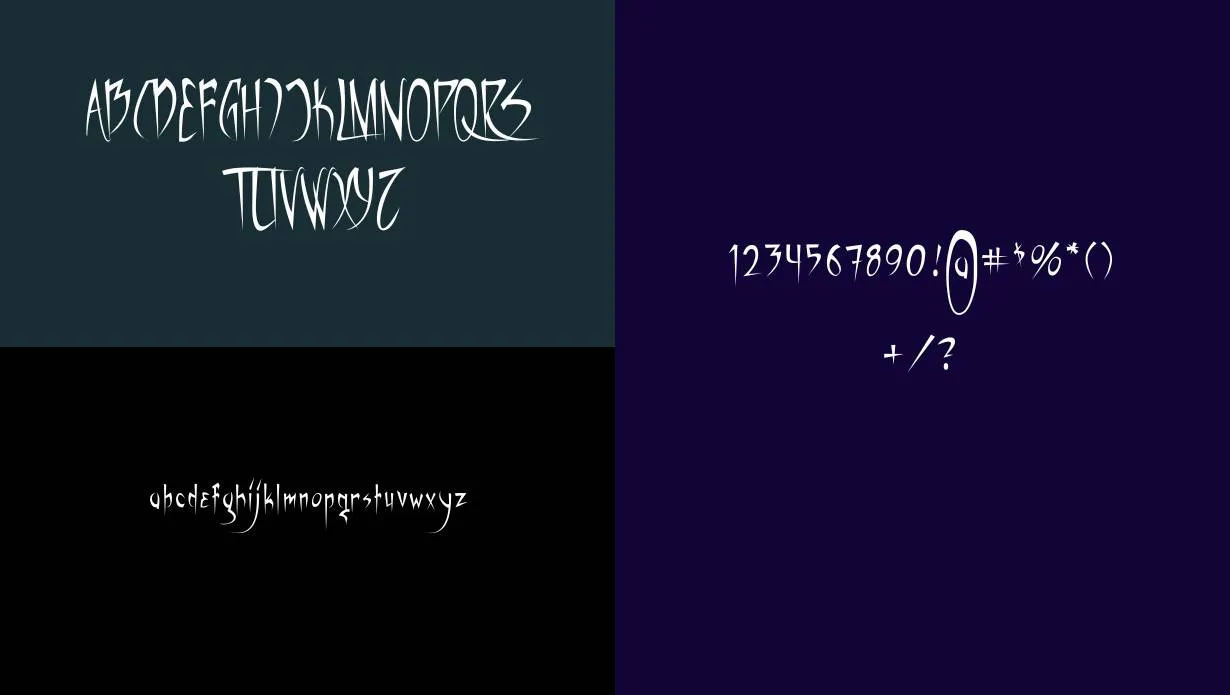
The Vampiress font embodies a spooky and gothic aesthetic, making it a common choice for Halloween-themed designs, posters, or any project seeking a dark and mysterious appearance.
This font’s eerie and dramatic style adds a haunting and supernatural vibe to the text, perfect for setting the tone in designs requiring a touch of macabre.